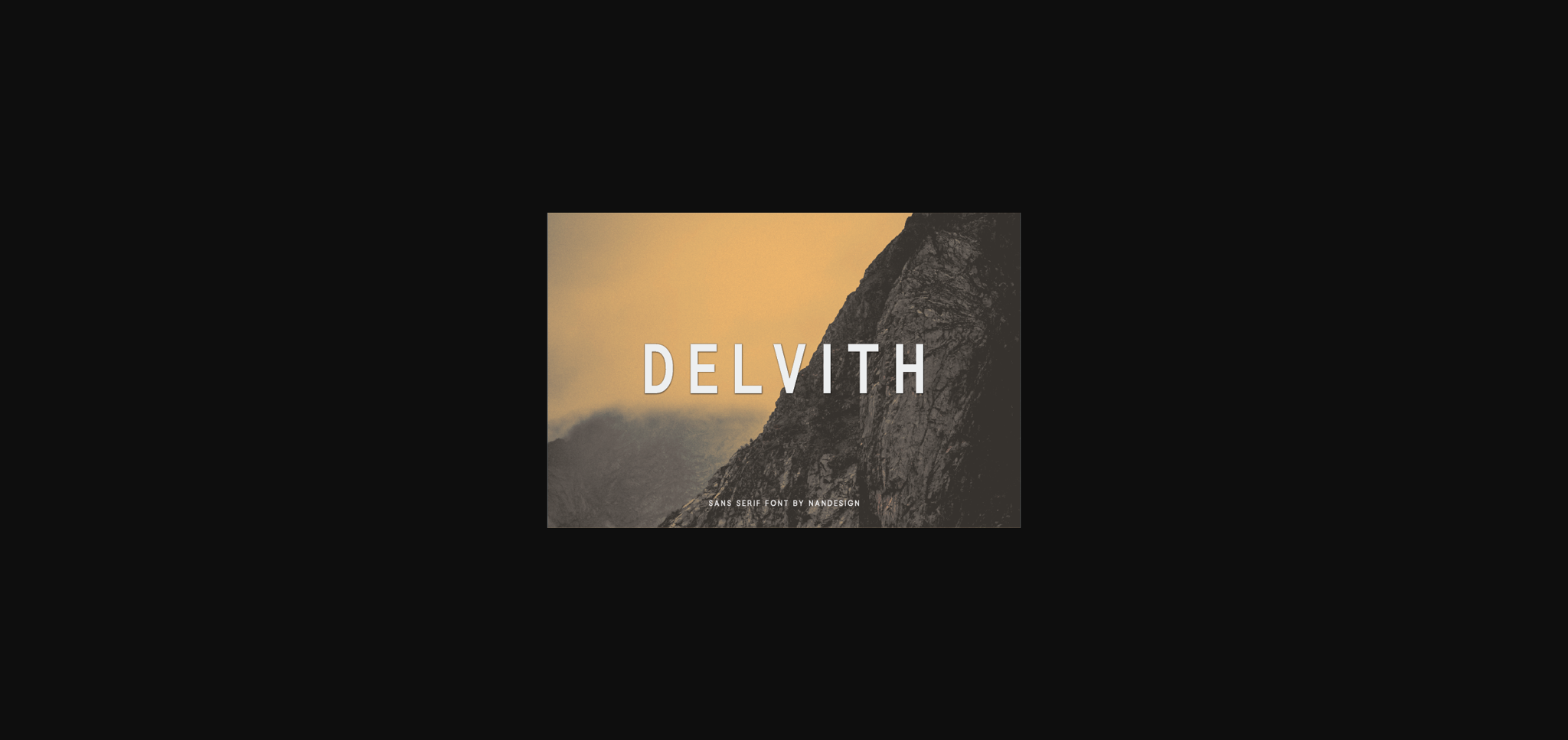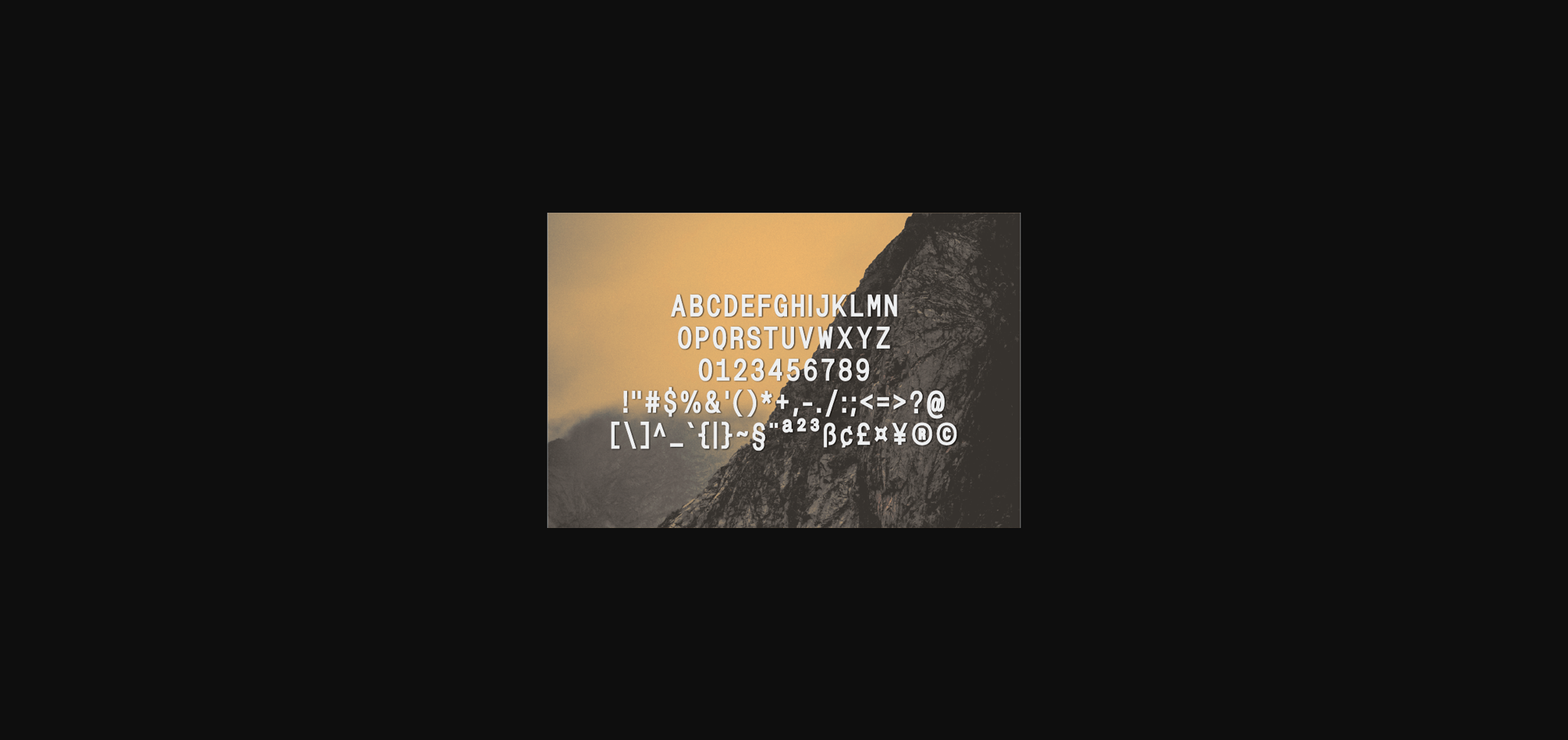
About Delvith Font
Delvith is a minimal and casual sans serif font. Suitable to a wide variety of designs due to its neat and simple style, Delvith has the potential to become your favorite go-to font, no matter the occasion!